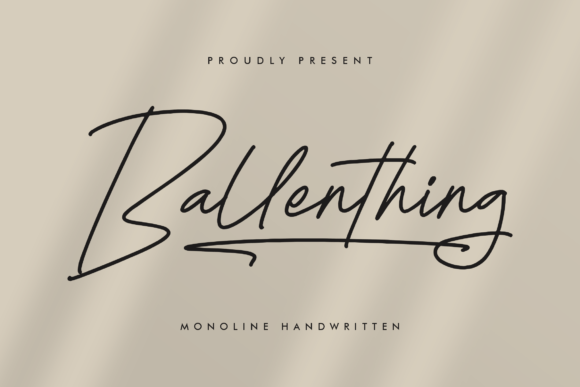
Unveil the Enchanting Ballenthing Font: Your Gateway to Creative Expression
Journey into the realm of elegance and creativity with the Ballenthing font, a captivating script font crafted by Glorytype Studio. This extraordinary font is your gateway to a world of limitless possibilities, where your design visions come to life with a touch of sophistication and charm.
With its mesmerizing curves and delicate strokes, Ballenthing exudes an air of grace and refinement. Whether you're crafting heartfelt wedding invitations, designing alluring logos, or creating stunning homeware designs, this font will add an enchanting touch to every project you undertake.
Picture the beauty of Ballenthing gracing your product packaging, transforming ordinary objects into works of art. Imagine your heartfelt quotes and inspiring messages taking on a new life, adorned with this elegant script. Envision your posters and shopping bags adorned with Ballenthing's timeless beauty, capturing the attention of all who behold them.
Let Ballenthing dance across your t-shirts, book covers, and name cards, leaving a trail of sophistication and style. Witness the magic as your invitation cards and greeting cards take on a new level of elegance, becoming cherished keepsakes that reflect the beauty of your special occasions.
The possibilities with Ballenthing are endless. Unleash your creativity and let this exquisite font guide you toward design masterpieces that captivate and inspire. Embrace the allure of Ballenthing today and embark on a journey of artistic excellence.